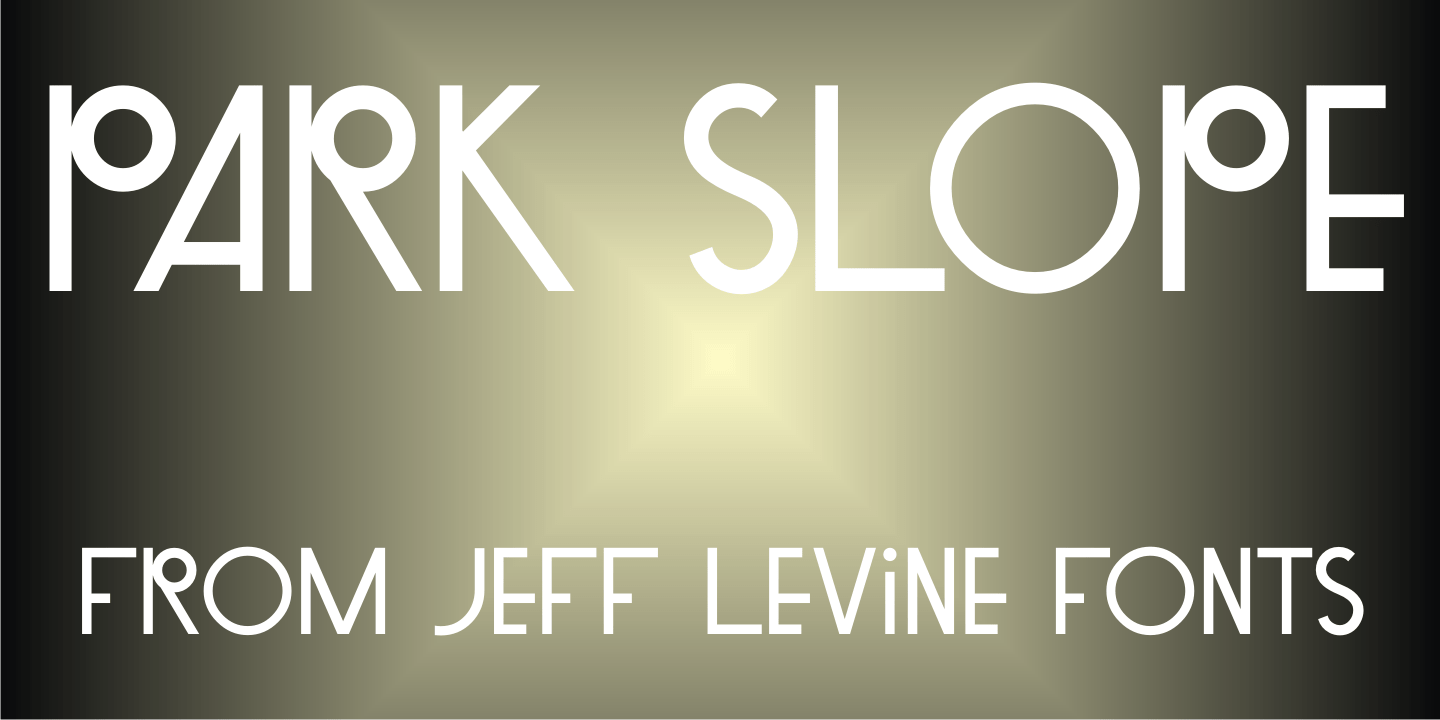
Park Slope
The free-form geometric shapes of the lettering on a vintage piece of sheet music entitled "Four Pictures" is the basis for Park Slope JNL, named for a neighborhood in Brooklyn, New York.
Park Slope JNL Regular by Jeff Levine Fonts